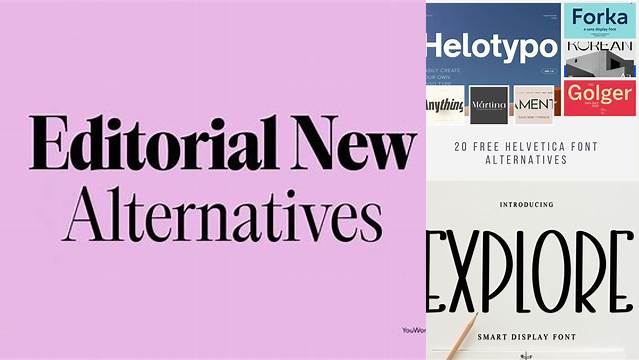
Editorial: Exploring Free Font Alternatives
Hey guys, let's dive into the awesome world of fonts! Choosing the right font can seriously make or break your design, right? It's like picking the perfect outfit – it has to match the vibe! And sometimes, you're on a budget, or maybe you're just not vibing with the paid options. That's where free font alternatives come in, saving the day. In this article, we'll explore the ins and outs of these freebies, giving you the lowdown on how to find them, what to watch out for, and how to use them like a pro. Trust me, you don't need to break the bank to get some killer typography!
Unveiling the Best Free Font Options: A Deep Dive
So, you're on the hunt for the perfect free font alternative, huh? Well, buckle up, because there's a whole universe of amazing typefaces out there, just waiting to be discovered. The trick is knowing where to look and what to look for. We'll explore some of the most popular and reliable sources for free fonts, like Google Fonts, Font Squirrel, and DaFont. These platforms are treasure troves, each with its own unique selection. When you're browsing, pay attention to the license. Most free fonts come with licenses that allow you to use them for personal and commercial projects, but it's always smart to double-check. Some might have restrictions on things like redistribution or modifications. Also, consider the quality and design. Look for fonts that are well-designed, with complete character sets, and versatile enough to fit your needs. Don't be afraid to experiment! Try out different fonts, see how they look in your designs, and find the ones that best express your vision. Remember, the perfect font is out there waiting for you, and it doesn't have to cost a penny. Finding a great free font alternative will open up a lot of possibilities. It will ensure that you are able to create the design with the best font that suits your design.
Google Fonts vs. Other Free Font Platforms
Alright, let's talk specifics, starting with a heavyweight contender: Google Fonts. It's a go-to for many designers, and for good reason. It offers a huge library of high-quality fonts, all free and open-source. The fonts are easily accessible through your web browser or by downloading them to your computer. Google Fonts is a fantastic choice if you are looking for a free font alternative. The biggest advantage is its simplicity. You can easily browse the collection, preview fonts, and quickly integrate them into your projects. Other platforms, like Font Squirrel and DaFont, each have their own strengths. Font Squirrel is known for its curated collection of high-quality, free fonts that are often licensed for commercial use. DaFont is a massive directory with a vast range of fonts, including some more unique and experimental options. However, it's important to be cautious, because not all fonts are created equal. Always check the license and make sure the font is suitable for your intended use. Google Fonts is a great place to start, but don't limit yourself. Exploring all the available platforms can help you to discover the free font alternative that best suits your needs and style, expanding your options and enhancing your projects.
Optimizing Font Selection for Web and Print
Choosing the right font is crucial, whether you're designing for the web or print. For the web, readability is king. Think about how the font will look on different screen sizes and devices. Choose fonts that are easy to read at small sizes and have good legibility. You should also consider the font's file size. Smaller font files load faster, which is essential for a good user experience. Sans-serif fonts often perform well on the web because they are clean and legible. For print, aesthetics can be more important, but legibility is still essential. Consider the size of the text, the paper you're using, and the printing method. You can use a wider variety of fonts, including serif fonts, which can add a touch of elegance and sophistication. Free font alternatives can enhance the visual appeal of your design. For both web and print, consider the font's personality and how it complements your overall design. Match the font to the project's tone and style. If you're unsure, always test the font. Print a sample or view your website on different devices. Remember, the goal is to create a design that looks great and communicates effectively. Considering this, you may search for the right free font alternative that you like.
Pairing Fonts: The Art of Typography Harmony
Alright, let's talk about font pairings. Finding the right font combination can elevate your design from 'meh' to 'wow'. This is the art of typography harmony. The key is to find fonts that complement each other. It can create a visual balance. There are several different approaches. One common method is to combine a serif font with a sans-serif font. Serif fonts are often used for body text because they have a traditional, easy-to-read feel. Sans-serif fonts are great for headings because they tend to look clean and modern. When you're pairing fonts, consider the relationship between them. Look at the fonts' styles, their weights, and their x-height. Look for fonts with contrasting styles, such as a bold, modern sans-serif paired with a classic serif. The best free font alternative for pairing with fonts should always be considered. There are many great resources available. Explore font pairing generators or read articles about typography. If in doubt, stick to simple combinations and test them out on your designs. Typography is the core of any design. You may find the best free font alternative to elevate your design with the right combination.
Advanced Typography Techniques with Free Fonts
Ready to take your typography skills to the next level? Let's explore some advanced techniques you can use with your free font alternatives. One of the most important is kerning and tracking. Kerning is the spacing between individual characters. Tracking is the spacing between all the characters in a block of text. Adjusting these settings can dramatically improve the readability and visual appeal of your designs. Another technique is using different font weights and styles. Play around with bold, italic, and regular versions of your font. This can create emphasis and visual hierarchy. You should also consider the use of leading, which is the space between lines of text. Adjusting the leading can improve the readability and create a more visually appealing layout. You can also experiment with text effects such as drop shadows, outlines, and gradients. These can add depth and visual interest. Experiment and have fun! Take advantage of the incredible free font alternative that are available. With a little practice, you can create stunning typography that will wow your audience.
Avoiding Common Pitfalls with Free Fonts
Let's be real, there are some common mistakes people make when using free font alternatives. It's good to know about them so you can avoid them. A big one is choosing fonts based on popularity rather than suitability. Just because a font is popular doesn't mean it's the right choice for your project. Consider the font's design, its readability, and its suitability for your target audience. Another mistake is overusing fonts. Sticking to a limited number of fonts in your design can create a more cohesive and professional look. Don't overcrowd your designs. Sometimes, less is more. One more thing to watch out for is using poor-quality fonts. Always check the license and make sure the font is well-designed and complete. These are some of the mistakes that you can avoid while looking for the best free font alternative.
Customizing Free Fonts: Tips and Tricks
Okay, so you've found a free font alternative you love, but it's not quite perfect? Don't worry! You can customize fonts to create unique and stunning designs. If you're familiar with vector editing software like Adobe Illustrator or Inkscape, you can start by modifying the font's shapes. You can tweak the curves, adjust the proportions, or add your own custom elements. Be careful not to violate the font's license. Be sure to check if the font allows modifications. Use software like FontForge if you want to create your own font. However, this is a more advanced technique. A simpler approach is to adjust the font's weight, style, and size. You can also experiment with different colors, gradients, and effects. By customizing your fonts, you can make your designs unique and stand out from the crowd. If you have any difficulties, don't hesitate to look up the free font alternative customization tips.
Free Font Alternatives for Branding and Logos
Choosing a font for branding and logos is a big deal. The font becomes the face of your brand, so it has to represent your values and personality. Consider the style of the font and how it aligns with your brand's identity. Is your brand playful, modern, or traditional? The font should reflect this. One of the best things to look for is versatility. The font should work well in different sizes and contexts. Another thing to consider is the font's availability. The font should be easy to find, download, and use. Your brand's font becomes the free font alternative of choice. Remember to use it consistently in your branding materials. This includes your logo, website, and marketing materials. A consistent font will build brand recognition and create a strong visual identity. Don't be afraid to explore different options and test them out on your designs.
Legal Considerations: Copyright and Licensing
Navigating the legal landscape of fonts can be tricky, so let's break down some important things to know. When you download a free font alternative, you're usually granted a license, which specifies how you can use the font. Make sure you understand what you're allowed to do. Most licenses permit personal and commercial use, but some might have restrictions. Pay attention to whether the license allows you to modify the font, and check if there are any restrictions on redistribution. Always check the license agreement. Ignoring these terms can lead to copyright infringement and other legal issues. If you are using a font in your design, always give credit to the font designer. Be sure that your free font alternative is clear with your license.
Finding Fonts with Extended Character Sets
One of the biggest advantages of some free font alternatives is their extended character sets. It includes a broad array of symbols, glyphs, and special characters. Having a font with an extended character set is a great bonus, especially if you need to support multiple languages or include symbols in your designs. This is beneficial for creating designs that cater to a wider audience. When you're looking for a font, check to see if it supports the characters and symbols you need. You can usually find this information on the font's download page or on the website of the font foundry. You might also consider looking for fonts that support OpenType features. This will give you access to even more advanced typographic options. These features, such as ligatures, swashes, and alternative characters, add extra visual interest and elegance to your designs. This way, you are able to find a great free font alternative.
Best Practices for Font Management and Organization
Keeping your fonts organized is crucial for a smooth design workflow. When you have a lot of fonts, things can get messy. It's important to have a system in place. Start by creating a dedicated folder on your computer where you store your fonts. Organize your fonts by category, such as serif, sans-serif, script, and decorative. You can also create subfolders for fonts you've used in specific projects. This will make it easier to find them again. Use a font management tool. This will help you to preview, activate, and organize your fonts. Regularly review your font library and remove any fonts you no longer use. Also, be sure to back up your fonts. This ensures you don't lose your valuable fonts. Good organization is a good way to keep your free font alternative in good shape.
The Future of Free Fonts: Trends and Innovations
The world of free font alternatives is constantly evolving, and it's exciting to see what the future holds. One trend is the growing popularity of variable fonts. Variable fonts allow you to adjust a font's weight, width, and other attributes. This is beneficial for creating dynamic and responsive designs. Another trend is the increasing number of font foundries offering free fonts with commercial licenses. This makes it easier for designers to use high-quality fonts in their projects. As technology advances, we can expect to see even more innovative and creative fonts emerge. This includes fonts that incorporate new design principles, support for diverse languages, and advanced typographic features. Always be on the lookout for new trends to find the perfect free font alternative.
The Psychology of Typography: How Fonts Affect Perception
Believe it or not, fonts have a powerful impact on how we perceive information. They can influence our emotions, our opinions, and even our behavior. Different fonts have different personalities. Serif fonts are often associated with tradition, trustworthiness, and sophistication. Sans-serif fonts tend to feel modern, clean, and approachable. Script fonts can add a touch of elegance and creativity. When selecting a font, consider the message you want to convey and the audience you're trying to reach. Is it a formal, serious message, or a casual, fun one? The font is important when selecting the free font alternative. Be sure that the font conveys the right message to your audience. A well-chosen font can help you establish a connection with your audience. It can help you create a design that resonates with them on a deeper level. Understanding the psychology of typography will help you make informed decisions and create designs that are both visually appealing and effective.
Resources for Finding and Using Free Fonts Effectively
Alright, let's get you equipped with some awesome resources to help you find and use free font alternatives effectively. Start with platforms like Google Fonts, Font Squirrel, and DaFont. They're all great starting points to find cool fonts. Websites like Behance and Dribbble are also excellent sources for inspiration and font recommendations. You can browse through projects by other designers to see how they use fonts. When you're learning about typography, there are tons of free online courses, tutorials, and blog posts that can help you master the basics. Experiment with the fonts and have fun. The more you practice, the better you'll become at selecting and using fonts. Many websites will provide the resources for the free font alternative.
Evaluating Font Quality: What to Look For
When you're choosing a free font alternative, you have to check the quality. This can make or break your design. Look for fonts with well-designed letterforms. Pay attention to the details. Make sure the font has a complete character set, including all the letters, numbers, and symbols you need. A great quality font will provide a smooth and clear look. Make sure the font is legible at different sizes and on different devices. Test it out on your designs. A poor-quality font can look blurry or distorted. Make sure that the font is well-kerned and well-spaced. Always choose a font that reflects your design style and personality. Make sure the design and style match your brand.
The Role of Free Fonts in Accessibility and Inclusivity
When you are creating designs, keep accessibility and inclusivity in mind. Accessibility means making your design usable by everyone. Inclusivity means creating designs that are welcoming and relevant to a diverse audience. Free font alternatives can play a significant role in making your designs more accessible and inclusive. First, choose fonts that are highly legible. This is crucial for people with visual impairments. Select fonts with a clear and distinct shape. Ensure the fonts are designed with good contrast. This will help people with low vision to see your design. When you are designing, it is important to consider different languages. Ensure your font supports the character sets for all the languages that your audience uses. A great free font alternative provides you with the options that you need to be able to create a successful design.
Case Studies: Successful Projects Using Free Fonts
Let's get inspired! Exploring successful projects that have utilized free font alternatives can give you some great insights. Many businesses and designers have created awesome projects with free fonts. This can be a website, a brochure, or a logo. For instance, look at how Google uses its own font, Roboto, across its various products and services. Or, check out the websites that use Open Sans to create a clean and modern look. You'll see how versatile these free fonts can be. Take note of how they pair fonts. What are the color palettes they used? You can also learn how they used the fonts to match their brand's personality. By looking at different case studies, you'll find inspiration. You will be able to learn the best way to utilize a free font alternative.
Copyright and Open-Source Licenses: A Comparative Analysis
Let's dig a little deeper into the different types of licenses you might encounter when working with free font alternatives. You have a copyright license. This is the most common type of license, which grants you permission to use the font. Copyright licenses may have different terms, so it is important to read carefully. Open-source licenses are another option. These are more permissive and allow you to use, modify, and distribute the font. Different licenses will have different terms, and you will want to be aware of the differences. Always make sure you understand the terms of the license before using a font, so you don't run into any legal issues. This way, you can be sure of a great free font alternative.
Free Fonts in Mobile App Design: Best Practices
When choosing fonts for mobile app design, there are some important considerations. Mobile apps have a unique set of challenges, like small screen sizes and different user interfaces. One of the key elements to consider is readability. Choose a font that's easy to read, even on small screens. This is important for legibility. Sans-serif fonts often work well. You need to consider the font's size and weight. Your app's design should be responsive to different screen sizes. When you are choosing the best free font alternative, make sure that it is well-suited for mobile design.
How to Contribute to Open-Source Font Projects
If you want to be more involved in the world of free font alternatives, you can contribute to open-source font projects. This is a great way to give back to the community. You can start by finding a project that interests you. Research the project's license and contribution guidelines. You can then contribute by helping to improve the font's design. You can also help with the project documentation, which includes the editing and translating of the project. You can also help by testing fonts and reporting any issues you find. If you have a good idea for a font, you can design your own. You can then submit it to an open-source project. You can make a difference by contributing your time and skills. This is a great way to learn more and find a great free font alternative.
The Impact of Free Fonts on Design Accessibility
Let's discuss the impact of free font alternatives on design accessibility. Choosing the right font is essential. For people with visual impairments, the choice of font can make a big difference. Choose fonts that are easy to read, with clear and distinct shapes. Consider the font size, and make sure it is large enough for people with low vision to see. Good color contrast between text and the background is essential for readability. Open-source fonts often provide more accessibility options. Always test your design with accessibility in mind. With good design, everyone can access it, and it will ensure inclusivity.
Choosing Fonts for Different Languages and Scripts
When you are working on a design project, you have to consider the language and script that you are using. When you are selecting a free font alternative, you have to select a font that supports the language and script you need. Make sure the font has all the necessary characters and symbols. Make sure the font is designed with good legibility. If your audience speaks different languages, make sure your font supports all those languages. There are a lot of great fonts that support different languages, so you have many options to choose from. Always test the font to make sure it renders correctly in different languages and scripts. Be sure to check out the free font alternative that supports the languages that you need.
Free Fonts and the Evolution of Design Trends
Free font alternatives have become essential in design trends. As design trends evolve, fonts do too. The best thing to do is to keep your knowledge up to date. You should always keep your eyes on what's new and what's trending. When you are choosing the right free font alternative, you have to consider what design trends are out there. Always follow what's popular. By keeping up with these trends, you can make sure your designs are fresh and relevant.
Evaluating Font Performance Across Different Platforms
When you're using free font alternatives, you have to evaluate the performance across different platforms. How a font renders on one platform can vary on another. Always test your designs on different platforms, like websites, apps, and print. When you are choosing a font, consider the font's file size. The font should load quickly. Test your design on different devices and browsers. This will help you to make sure it looks great everywhere. A great font is essential. Keep in mind that the free font alternative will appear differently.
Free Fonts for E-commerce and Marketing Materials
Choosing fonts for e-commerce and marketing materials is important. Your font is a key part of your brand's visual identity. Consider the font's style and how it matches your brand. When choosing the best free font alternative, consider readability. Your customers have to be able to read your text. Try different fonts. Test them out to ensure it fits with your brand.
The Importance of Font Testing and Iteration
Before you finalize your design, font testing is key. Once you've chosen a free font alternative, you need to test it out. First, test out the font on your designs. Print it out, look at it on different devices, and make sure it looks good. Next, get feedback from your audience. This will provide you with a better insight. Don't be afraid to try different fonts. The most important part is to iterate. Remember, typography is never static. It is always evolving. The perfect free font alternative can make a lot of difference.
Best Practices for Licensing and Attribution of Free Fonts
When you are using free font alternatives, you have to always follow the rules. There are certain requirements for fonts. Always review the licensing agreements. Always give the designer credit. Make sure you comply with the licensing agreements. Read the fine print, and adhere to the terms. Doing so will help you navigate the legal landscape. Always acknowledge the creators. You may want to check out the free font alternative.
Curated Lists: Top Free Fonts by Category
Let's explore some curated lists of free font alternatives. Here are some top-tier fonts for different purposes: for headings, consider the Roboto, Open Sans, and Montserrat fonts. These fonts are very versatile. The best part is that you can use them in all sorts of designs. For body text, try out the Lato, Merriweather, or PT Sans fonts. For script fonts, consider using the Dancing Script, Great Vibes, and Pacifico fonts. For display fonts, you might consider using the Bebas Neue, Anton, or Oswald fonts. There are so many great fonts to choose from. Many websites will provide the list of the perfect free font alternative.
The Impact of Font Choice on User Experience (UX)
Your font selection plays a crucial role in the user experience (UX) of your design. The font affects readability, which is key to making sure the user has a good experience. Easy-to-read fonts are essential for UX. If users can't read your text, they won't engage with your design. Choose fonts that match your brand's personality. This helps to create a positive experience for your audience. If your design's UX is good, users will love the experience. This is also the same if you choose the right free font alternative. The font's appearance and how it complements the overall design can influence your audience's perception. If you choose a font with poor UX, the audience will not be engaged.